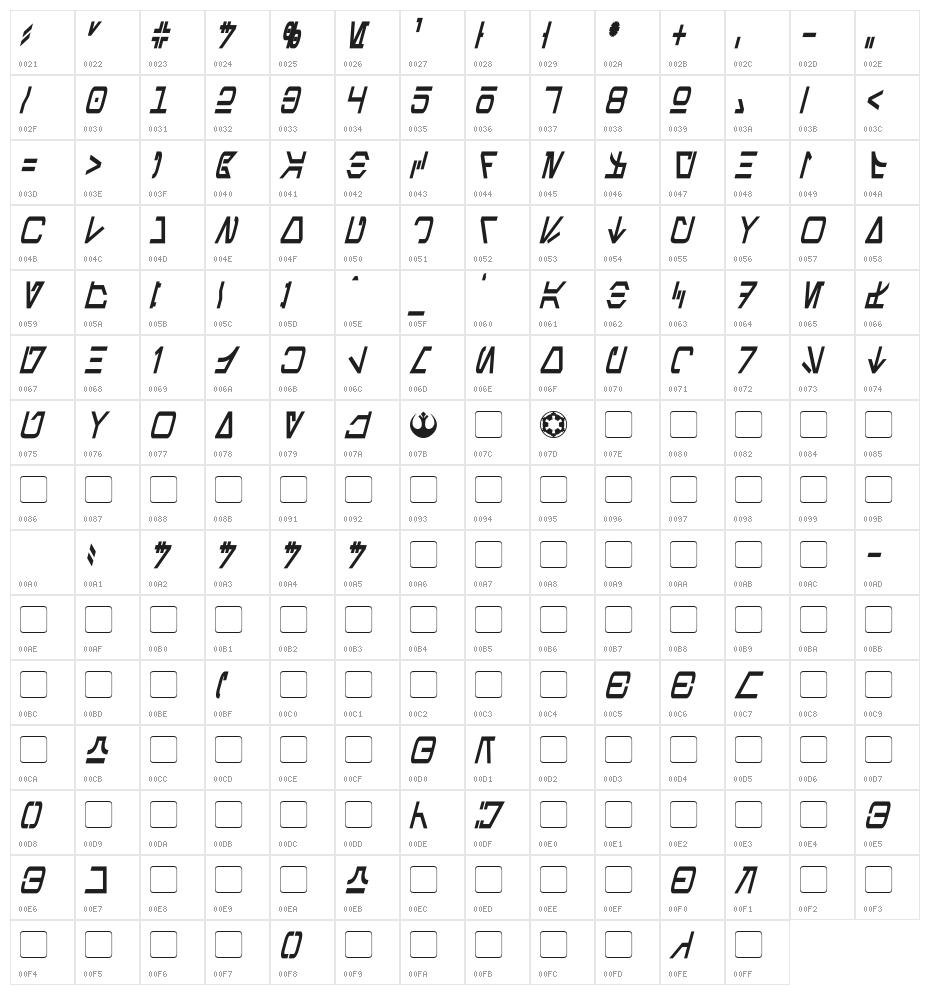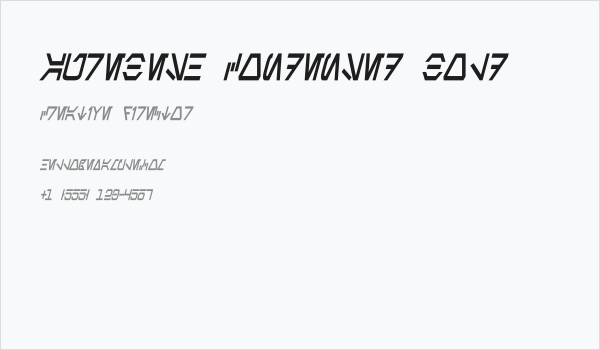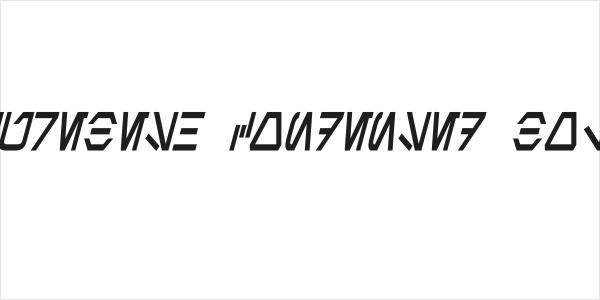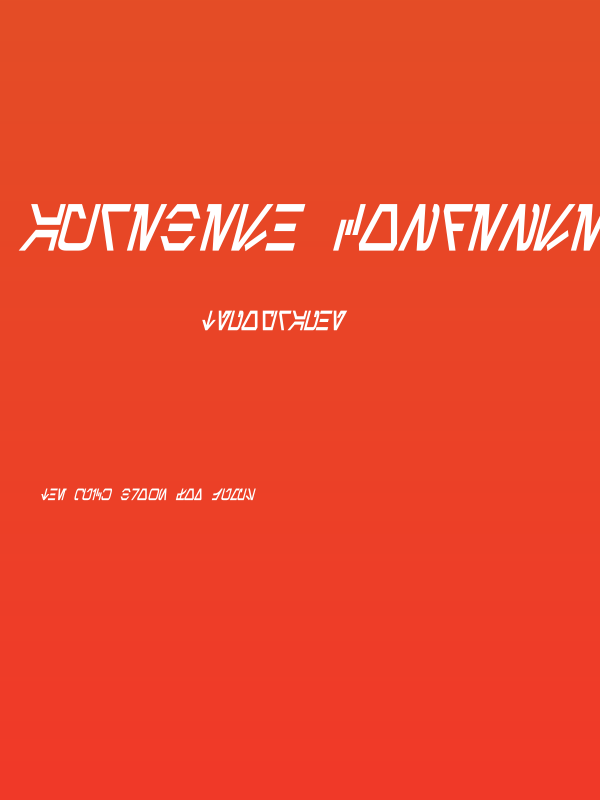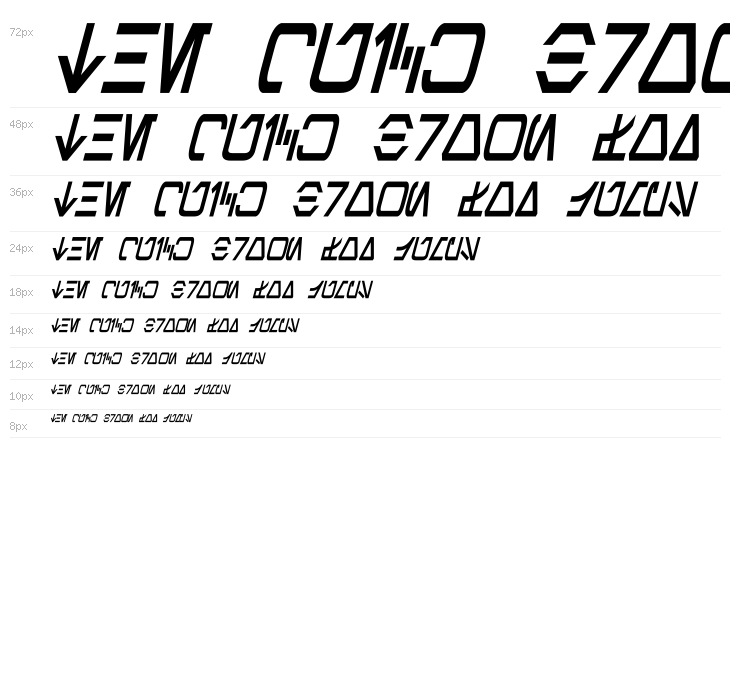
Aurebesh Condensed Bold Font
| Stile generale | Futuristic |
| Progetti proposti | Ideal for sci-fi themed designs, video game interfaces, movie titles, and event posters. |